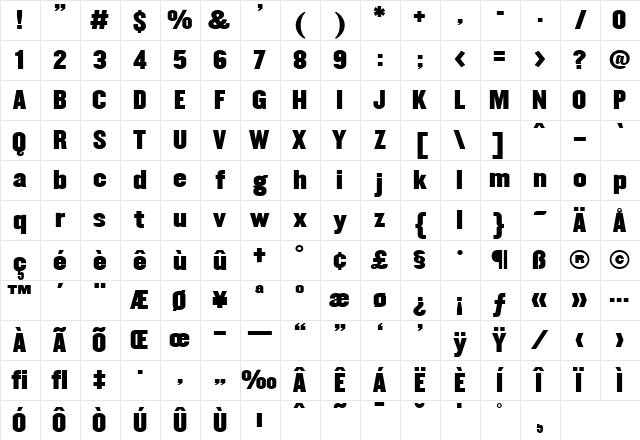
SI-Middleweight A
Design Context for SI-Middleweight
SI-Middleweight is a composed and adaptable typeface that performs quietly and consistently across a wide range of design contexts.